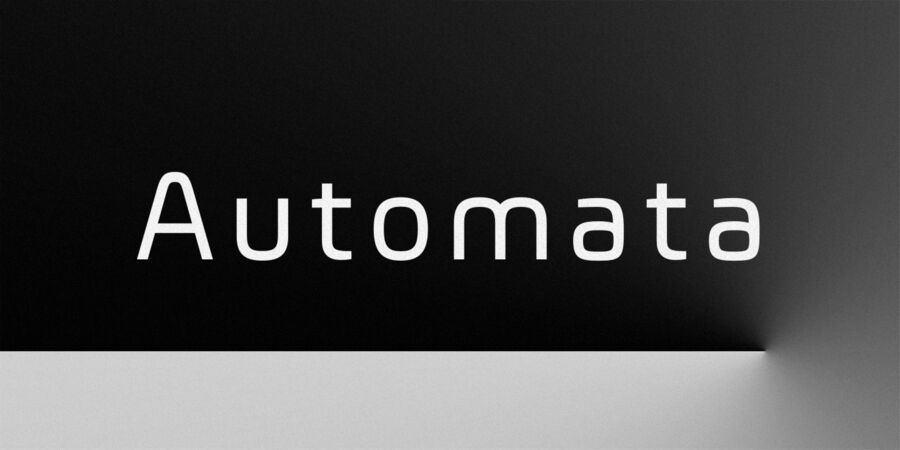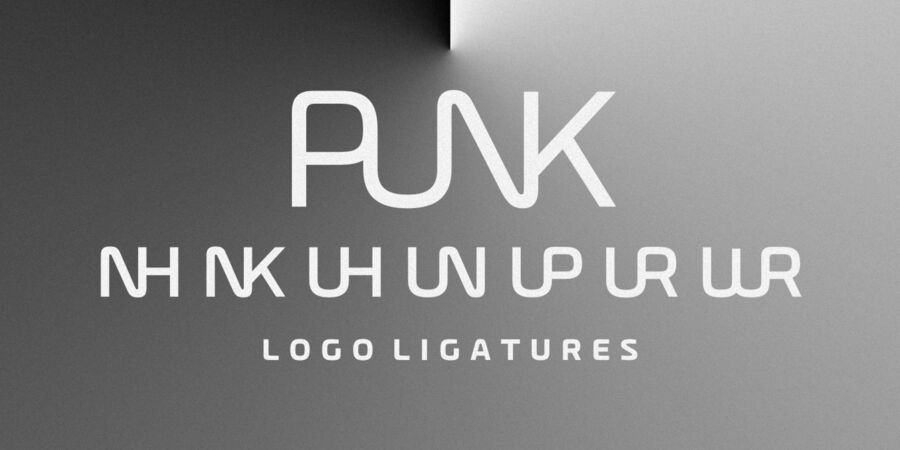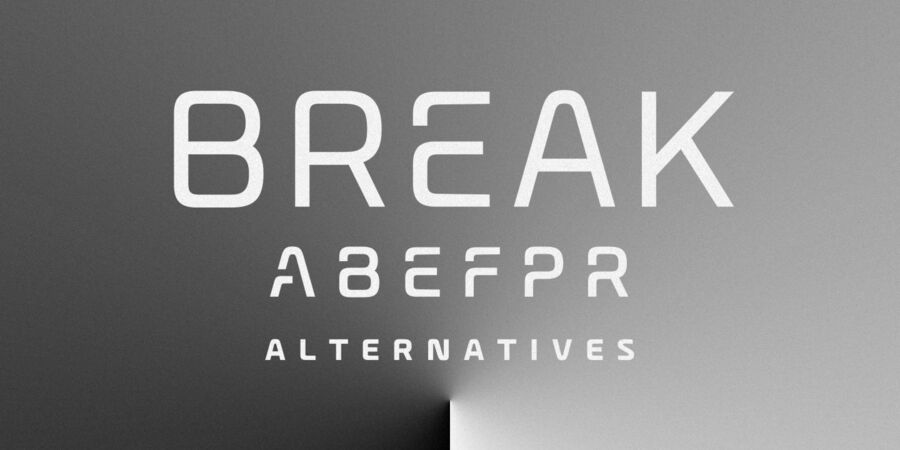
Automata typeface combines a modern appearance with easy readability. With its smooth, clean lines and geometric aesthetic, Automata conveys a sense of technology and innovation. We didn't sacrifice legibility in the process, Automata is still easy to read at medium/small size, making it suitable for a wide range of applications.
In addition to its futuristic design elements, Automata offers a variety of customizable options such as stylistic alternates, cool discretionary ligatures and multiple weights including extra-light and black. The support for many languages makes Automata a global typeface.
The typeface was designed by Enrico Sogari in 2023.